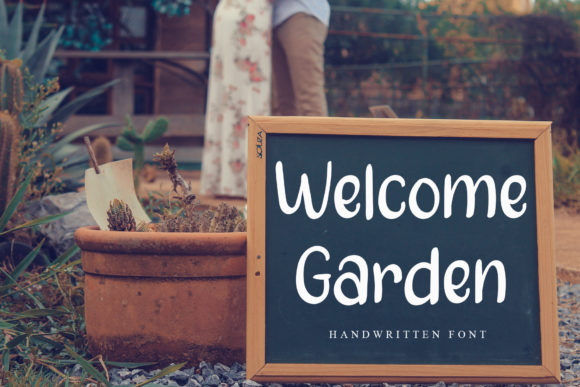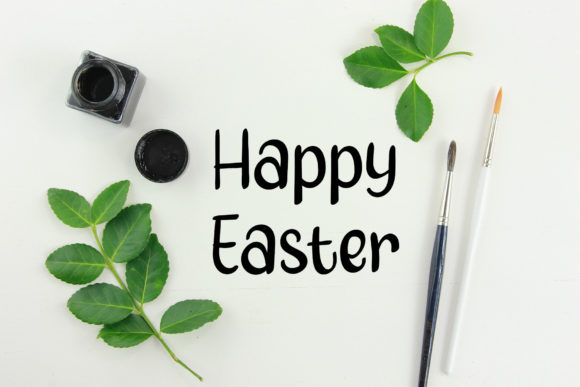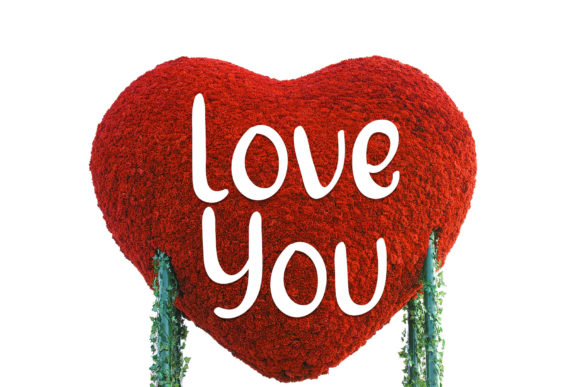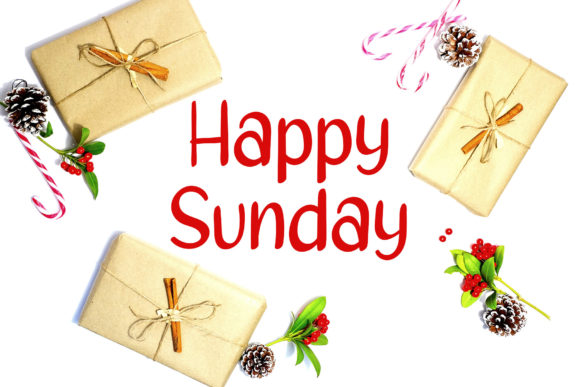
Gnomes Font
About Gnomes Font
Gnomes is a unique and elegant font, perfect to be used on invitation cards, greeting cards, party events, billboards, logos, business cards and any other design that requires a handwritten touch. This font features varied baselines, fine lines, beautiful glyphs and makes your ideas look exquisite and complementary to your work.